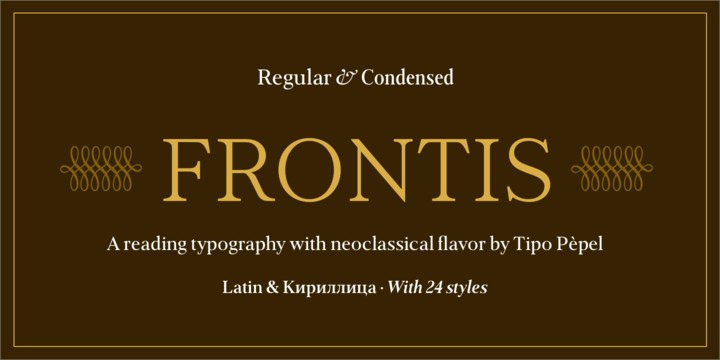
Frontis Font
Frontis Font is perfect for architectural firms, construction companies, engineering presentations, industrial design projects, building signage, real estate marketing, urban planning documents, infrastructure branding, contractor business cards, and professional technical documentation.
What makes Frontis Font exciting is its structural integrity that mirrors the precision and reliability found in architectural excellence. This robust typeface combines engineering principles with typographic craftsmanship, creating letterforms that communicate strength, durability, and professional expertise. The font's solid foundation and carefully calculated proportions make it ideal for industries where trust, competence, and structural soundness are paramount to success.
The Frontis Font family includes Light, Regular, Medium, Semi-Bold, Bold, Extra Bold, Condensed, and Extended variants. Each weight maintains the font's architectural character while offering comprehensive design flexibility for complex technical projects and professional brand identity systems.
Whether you're developing construction brand identities, creating technical documentation, designing architectural presentations, or building infrastructure marketing campaigns, Frontis Font delivers unmatched authority and credibility. Its professional character makes it perfect for engineering firms, construction companies, industrial manufacturers, and real estate developers seeking trustworthy visual representation.
The font's geometric precision and structural balance ensure optimal performance across technical drawings, blueprints, and professional documents. Each letterform has been engineered to maintain perfect clarity at any scale while preserving the font's distinctive industrial character and authoritative presence.
This versatile typeface excels in complex technical environments, offering designers the reliability needed for comprehensive brand communication strategies. The extensive character set includes technical symbols, mathematical operators, and international language support for global construction and engineering markets.